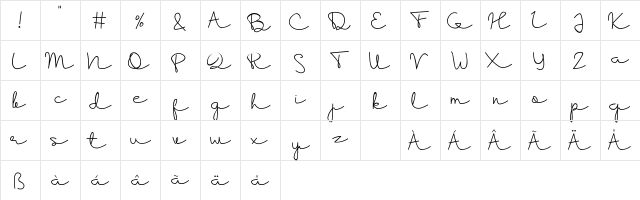
Bielifild Regular
Design Context for Bielifild Typeface
Bielifild takes a measured approach to typography — its balanced proportions and neutral character make it a reliable workhorse for both digital and print work.